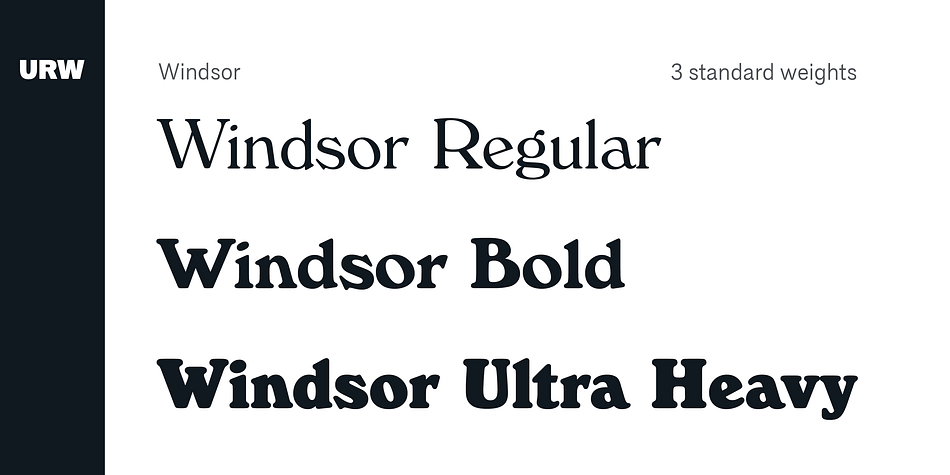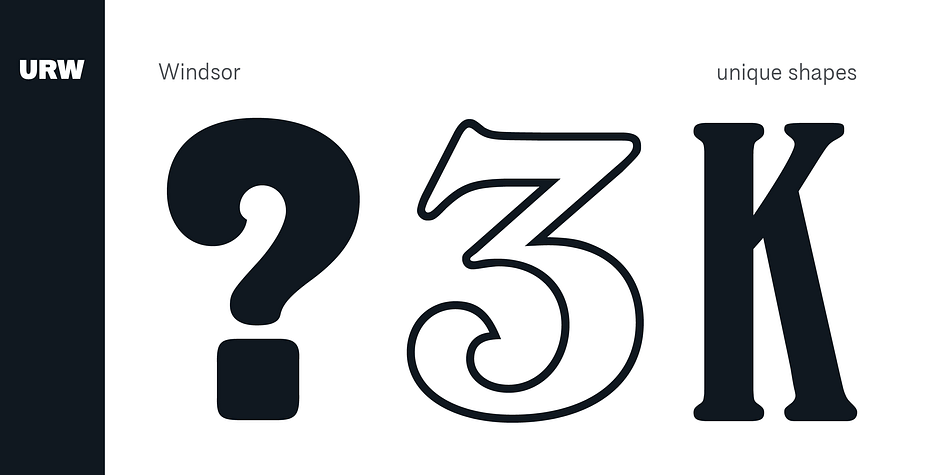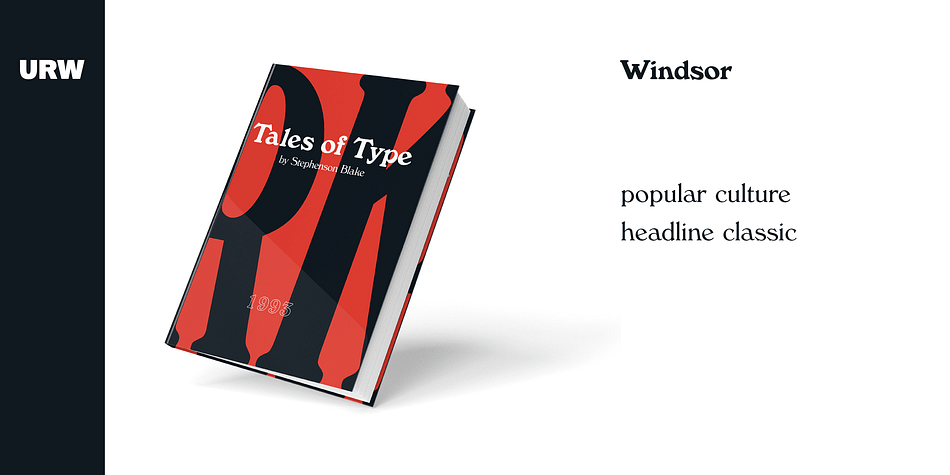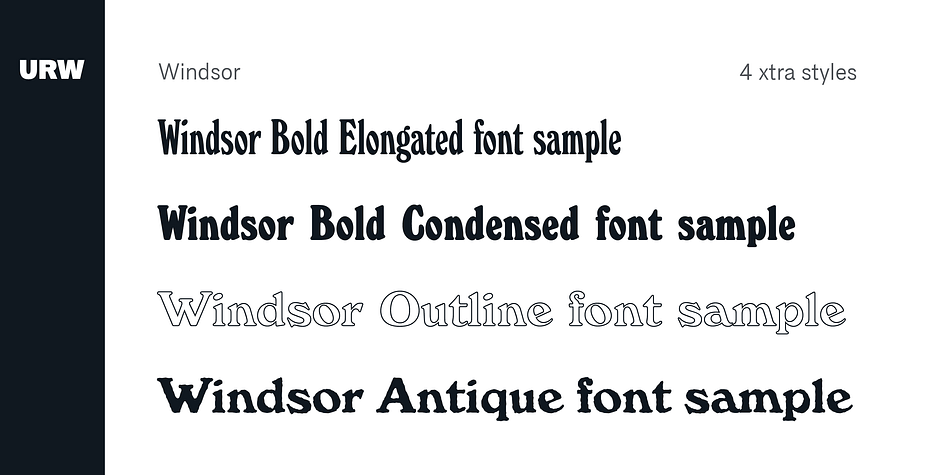
Designed by Stephenson Blake, URW Windsor is a display serif font family. This typeface has seven styles and was published by URW Type Foundry.
Classic, popular serif for use in headlines and titles with a distinctive character and some unique styles.